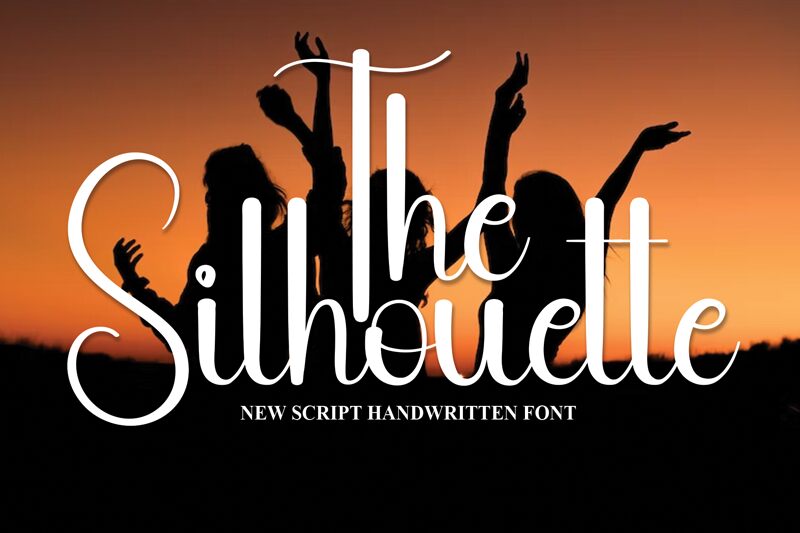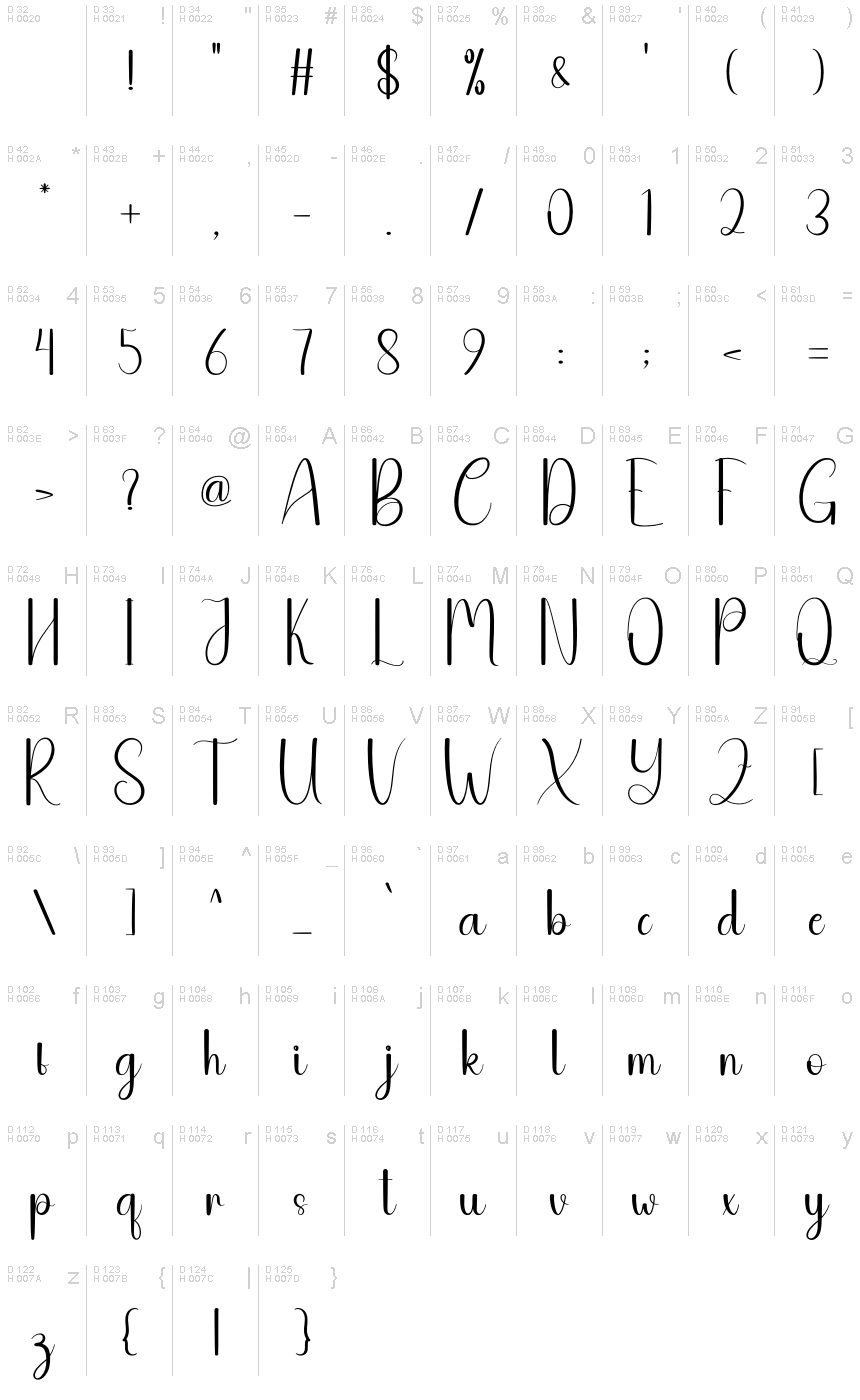
The Silhouette
The Silhouette is a captivating calligraphic font that exudes elegance and sophistication. Designed by Andi Moz, this font seamlessly blends graceful curves and bold strokes, creating a visually striking and harmonious aesthetic.
The Silhouette's distinctive flourishes and refined elegance make it a versatile choice for a wide range of design applications, from high-end branding and packaging to elegant invitations and editorial layouts.
Its timeless appeal and attention to detail make it a standout choice for those seeking to elevate their design projects with a touch of refined sophistication.